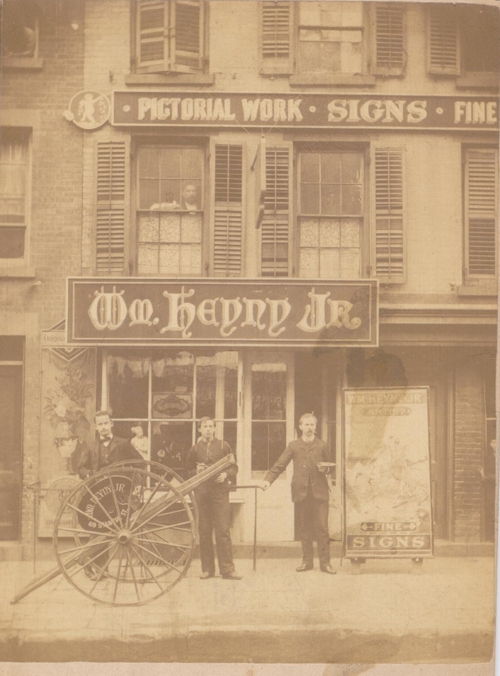
Glass Sign artists throughout history
My God......look what happens if you're gone for a few days. I saw my name there and am afraid when the truth comes out I couldn't stand in the same room with those names. Was absolutely blown away by the Strong piece I saw. Is that for sure by Charles Strong? Had seen close-ups of that some time ago and had no idea who the Creative Genius was that executed that !!!!
Well Doug, the truth is you haven't arrived...not until you post a photo of yourself and your employees (if you have any), standing in front of your shop, palette in one hand, mahl stick (crutch) in the other. And don't forget to park your hand cart in front so that not only do folks know you makes 'em by hand...but that you deliver them by foot.
Heyny's shop was established in 1874, in New York City
That must be the apprentice in the middle..wonder if its the little guy seen in the previous Heyny Sign Shop photo.
Look at one of the first names I mension on my first list. It is this article that I am basing my information about who might be the very first gold leaf sign artist in the US on.
Any dates on that last photo you posted ?
HEY! That guy in the middle IS Bernhardt! I'll be danged!
Does look a little like Percy..............
Just to clarify the history of the Letterheads. Who were the founding members ? Of those members who would be considered glass sign artists.
Bob Mitchell, Mark Oatis, John Frazier, Mike Rielley, Noel Weber, Earl Vehill and Rick Flores
Here's some additional information Rod:
Roughly 25 years ago, a magical moment in sign history, a group of extremely talented Denver craftsmen found each other and began having loosely structured meetings-get togethers more like it. They may have gathered just to have a good time and swap stories but eventually began intensive information and technique swapping. The old sign painting books such as Strong's Book of Designs became a cornerstone of their learning. As their talents and craftsmanship sharpened, they began entering the Signs of the Times annual design competition and generally swept every category. At the bottom of every entry, they wrote "member Letterheads". After the Letterheads were featured in a later Signs of the Times magazine, the rest of the sign industry learned of the Letterheads, with much envy.
In 1982, Noel Weber hosted the "Boise Bar-B-Q" in which he invited additional craftspeople from around the country. In October of the same year, Mike Jackson hosted the "Oklahoma Bash" in Moore, Oklahoma and roughly 135 sign makers showed up for an intensive weekend. Both Signs of the Times and SignCraft magazines sent their editors. As the next issues hit the streets, their articles and photos enlightened the entire industry. The movement was in full force with large meetings in Kansas City in 1983 and Memphis the following year. The rest of the growth is history. Literally hundreds of meetings have just "happened". The Denver group hosted the 10Th and most recently 20th anniversary meetings. While there is usually one National meeting a year, there are often four or five regional or area meetings a month scattered all over the country.
Amazingly, the Letterheads thrive, grow, and evolve without a true governing body. That's right-no president, treasurer, or even board of directors. The basic rule of thumb has been "if you want or have a Letterheads meeting-have one". That person or group decides the format, location, fees charged if any and all other variables.
At the center of the all the hoopla is the willingness to learn, share, and explore. Prior to the Letterheads, many craftsmen closely guarded their hard earned knowledge. Once, caught up in the movement, it becomes difficult not to want to share your knowledge, especially when even more experienced people are sharing theirs. While the earliest meetings in Denver emphasized the noble craft of sign painting, gilding, and designing, later meetings have acknowledged and accepted the introduction of the computer age. Even today, the blending of the old craft and state of the art technologies collect a crowd. Often, meetings have a theme, and attendees are encouraged to make a project showing off some of the person's talents or techniques.
Ya Know guys....there is a new link above which has the good fortune to be a "Sticky" thing which is dedicated to to works of art at the level of Masterpieces. I hope you'll step forward with the great photos (I have more than a couple myself) and post them with a minimum of chatter and a maximum of facts for the benefit of a future generation. Also am hoping that we stay true to the ideals that they are "Real Jobs" not project panels or salutations to amigos. You all know.......the very best work of great artisans we likley have never met and yet the work is/was still there when you had your camera.